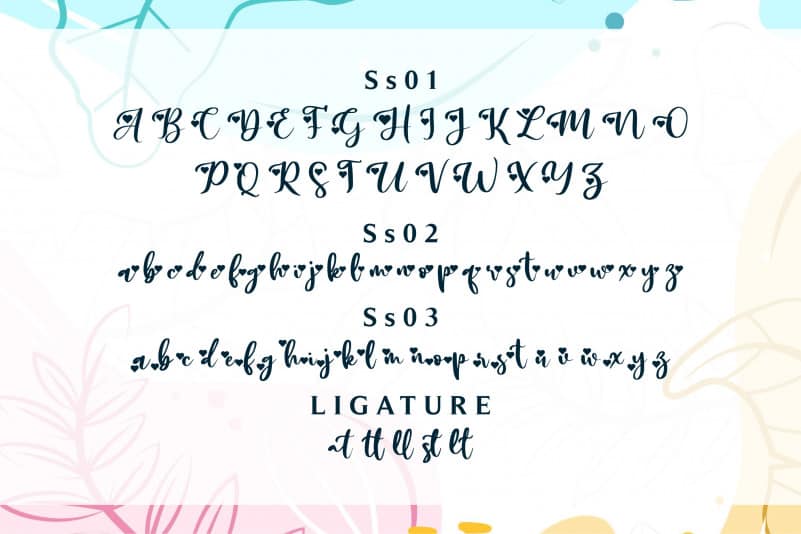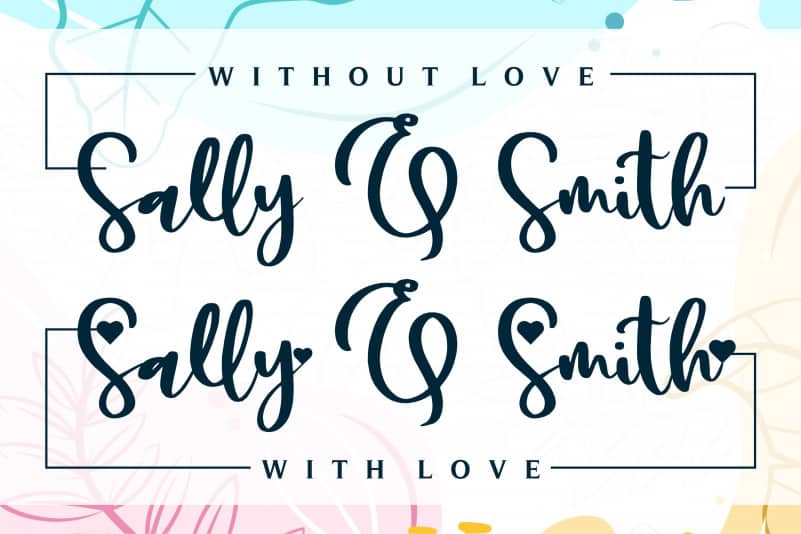
Sally & Smith Script Font
Sally & Smith Script Font is a dreamy and romantic handwritten font. This font is PUA encoded which means you can access all of the glyphs and swashes with ease! This original look will appeal to a wide range of crafty ideas, from letterheads and titles, to stationery.